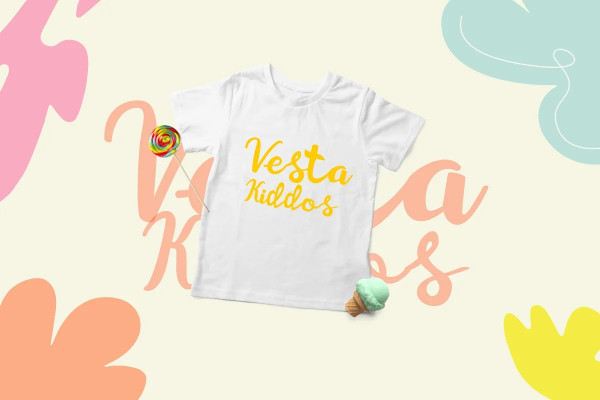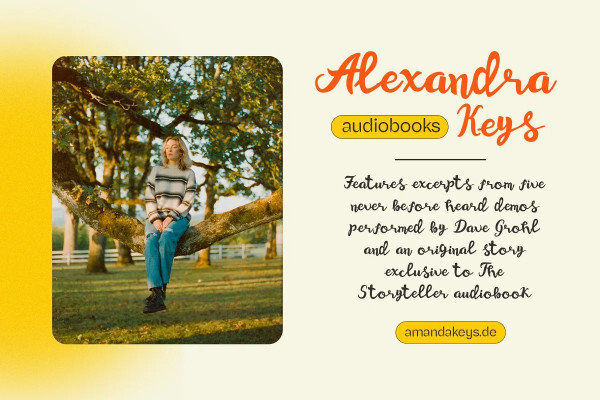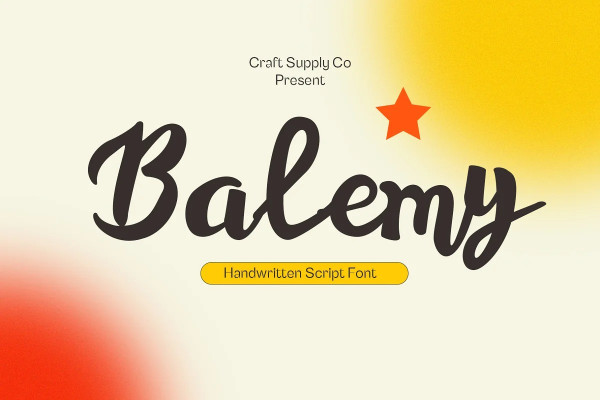
Balemy Script Font
Balemy Script Font, is a fusion of charm and playfulness meets an authentic handwritten style. Elevate your projects with the innate, handcrafted essence of this adorable script font.
This typeface is ideal for greeting card, packaging, brand identity, poster, or any purpose to make your art/design project look eye catching and trendy. Feel free to play with this typeface!